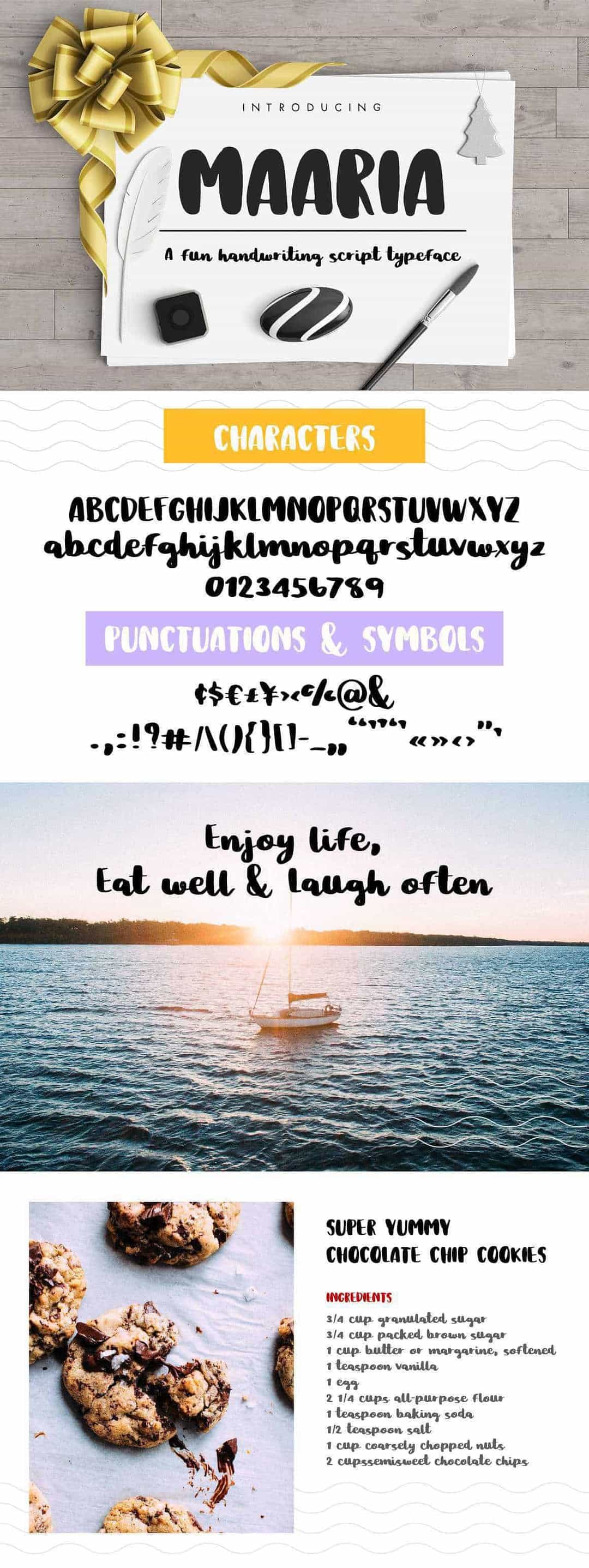
Today I am glad to present Maaria Script, the handwriting script typeface. This font is a handwriting script type with thick and thin stoke, it gives fun, informal and teenage impression. It can be employed as a simple and elegant logo that can be placed at the top of the website or as an artistic word for craft, do-it-yourself or kids’ related theme.